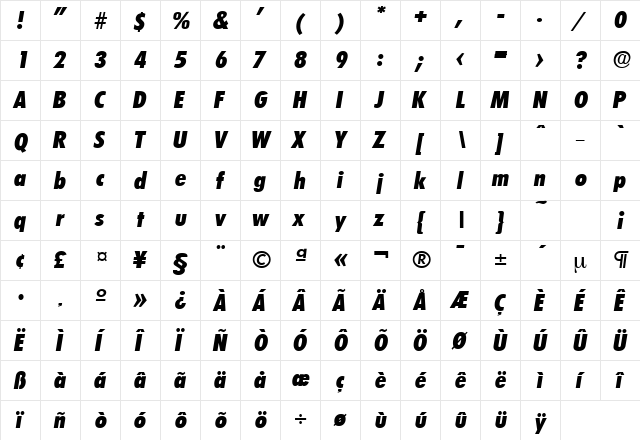
LimerickCond-Serial-ExtraBold RegularItalic Font Preview
Design Context for LimerickCond-Serial-ExtraBold Typeface
LimerickCond-Serial-ExtraBold takes a measured approach to typography — its balanced proportions and neutral character make it a reliable workhorse for both digital and print work. The dynamic lean of this cut emphasises speed and emphasis in any layout. The heavy weight commands attention and anchors typographic hierarchies. The condensed width makes it efficient for tight spaces without sacrificing legibility.
Pro Tip: Try LimerickCond-Serial-ExtraBold for annotation and caption copy alongside an upright companion — the contrast in angle creates a dynamic but ordered typographic system.